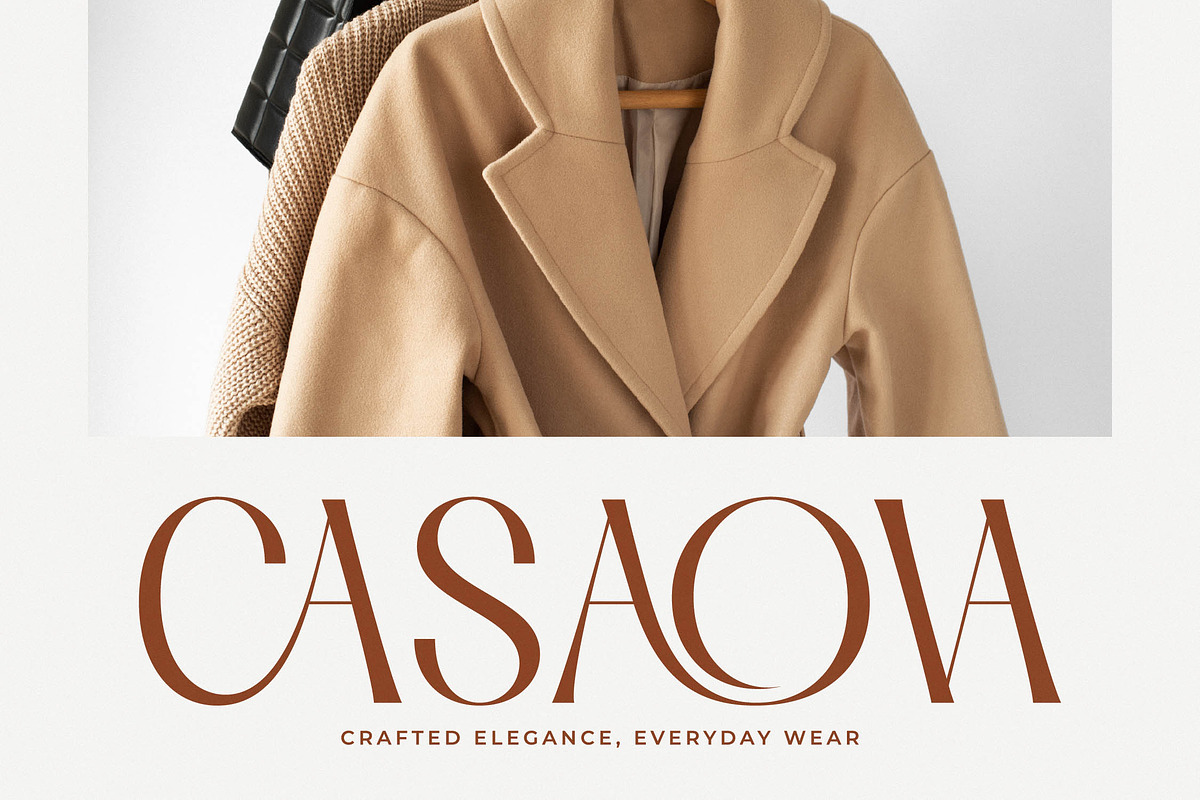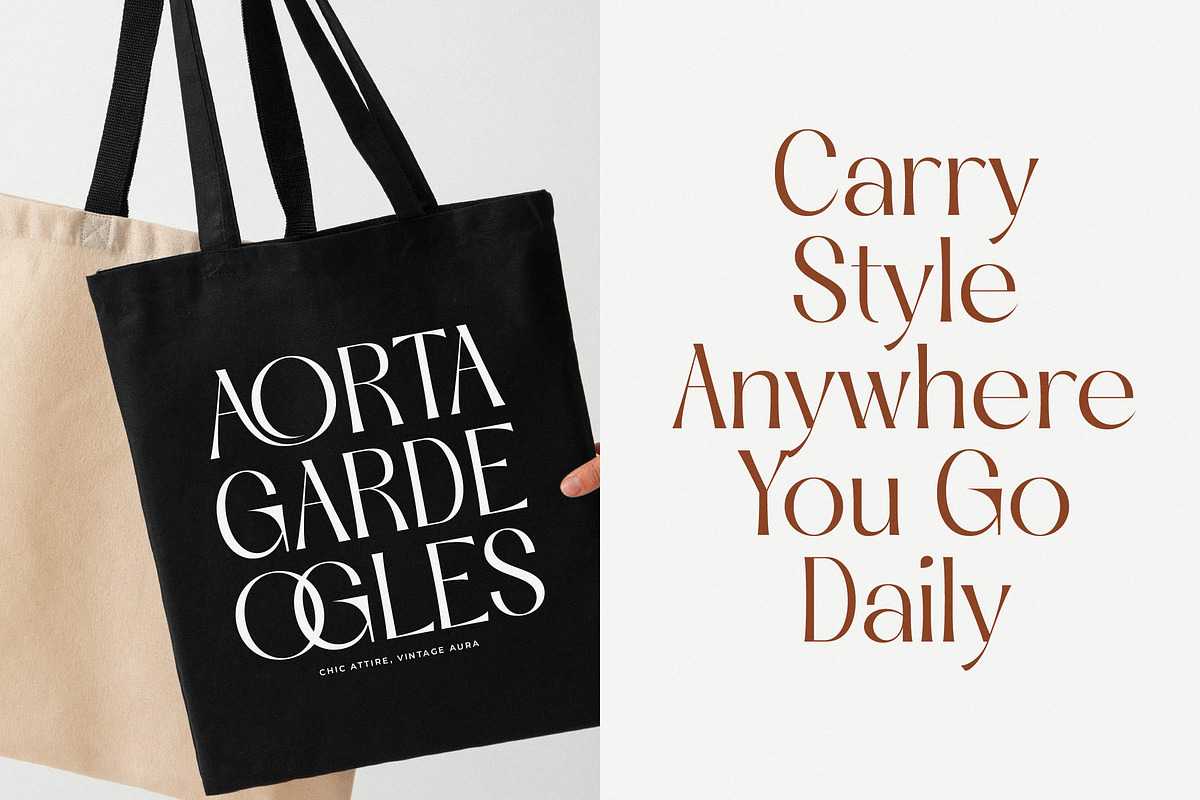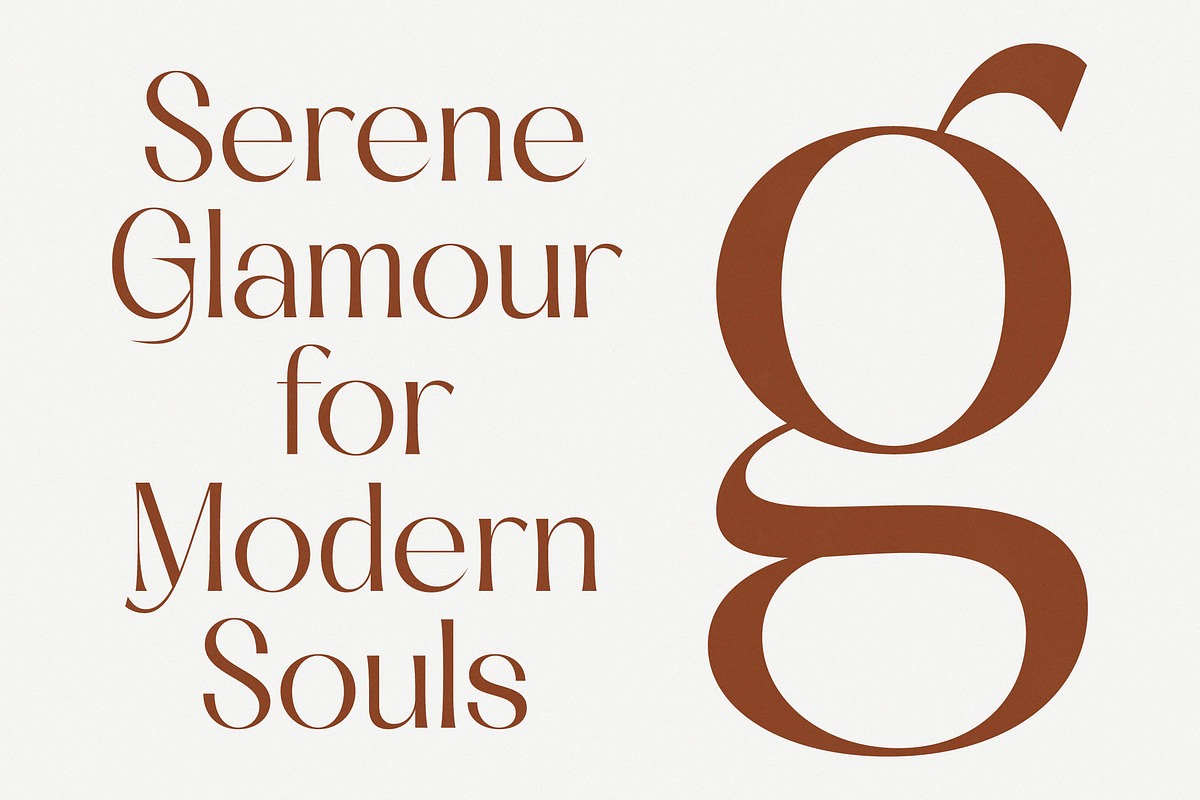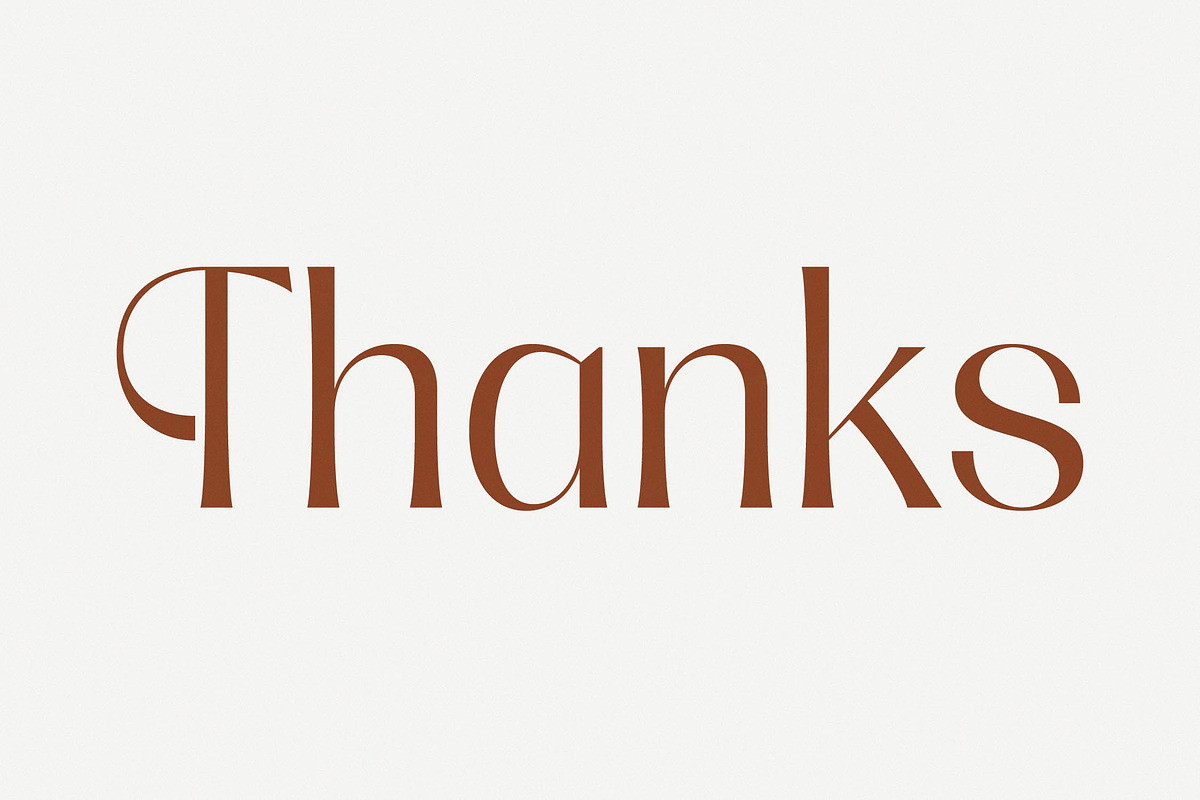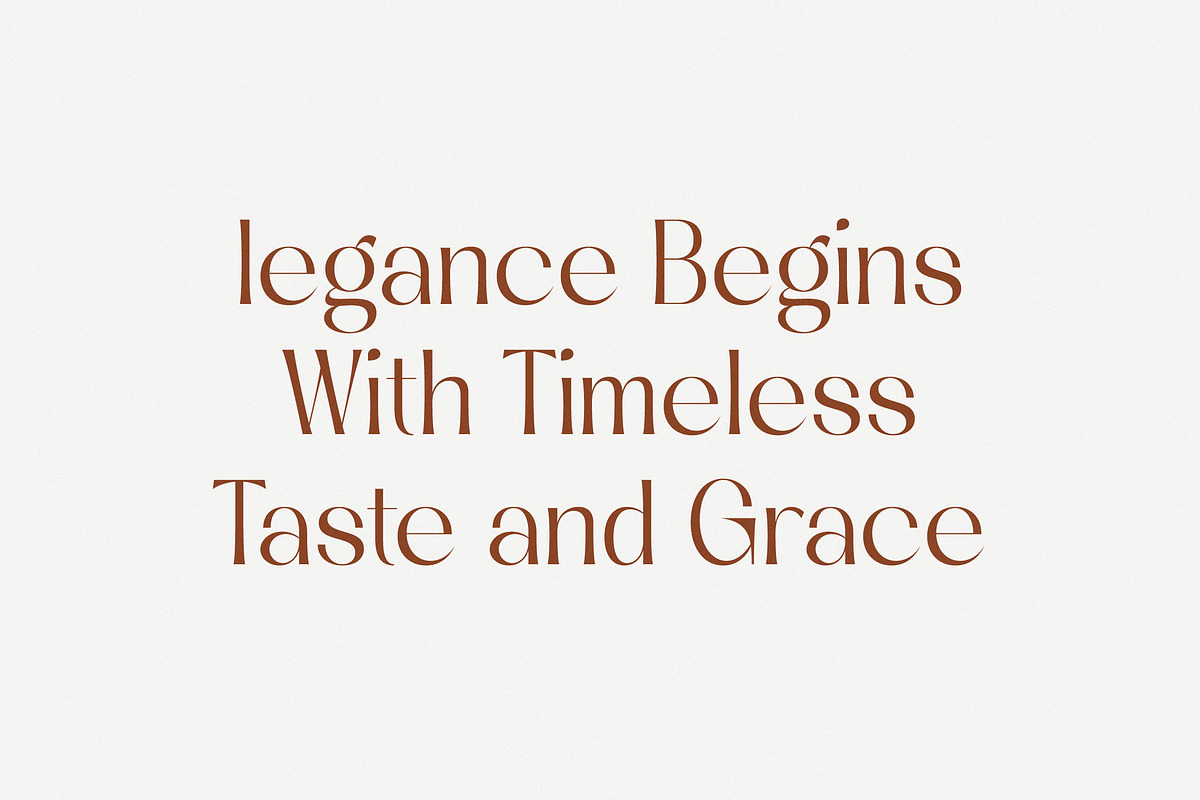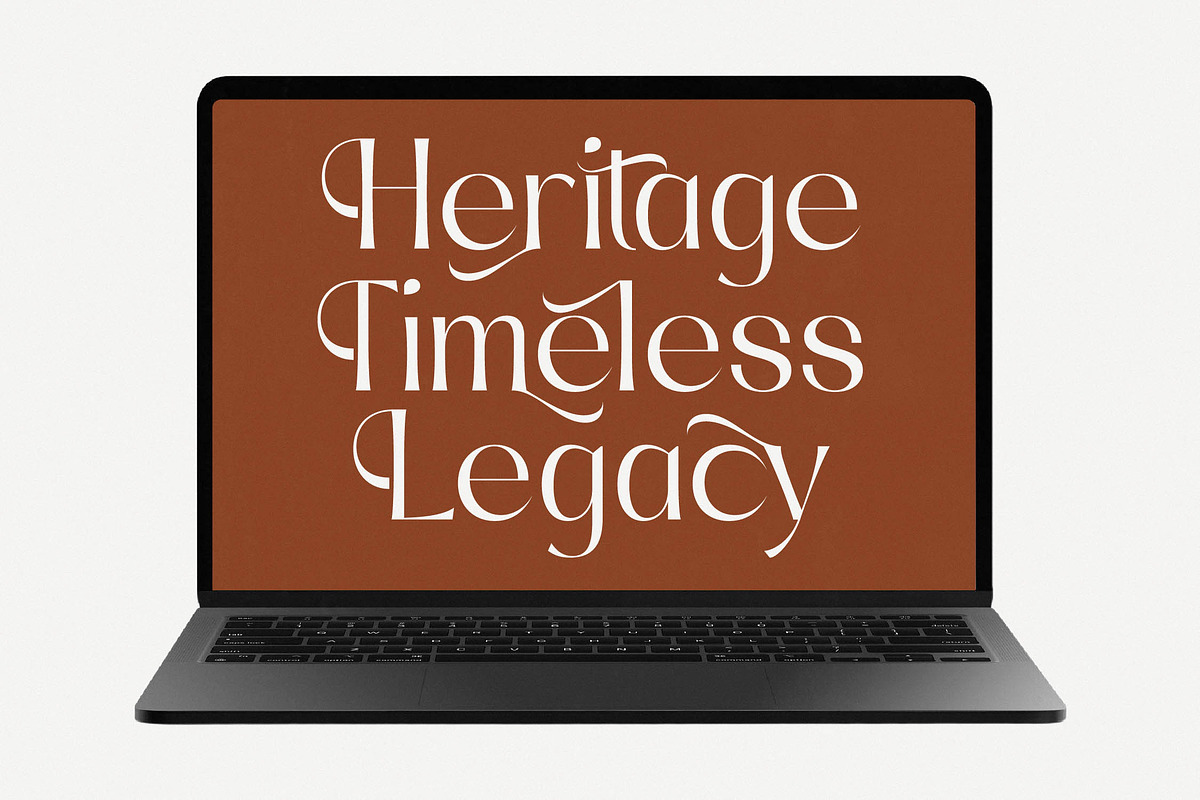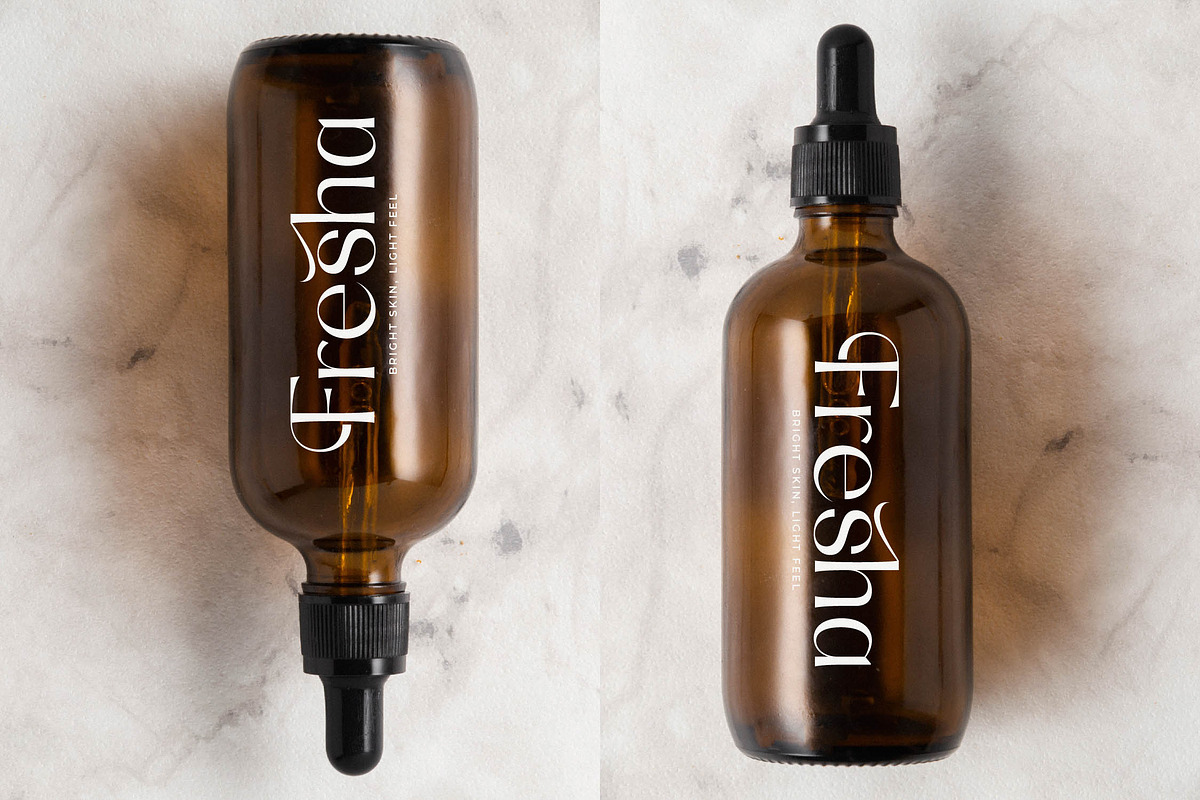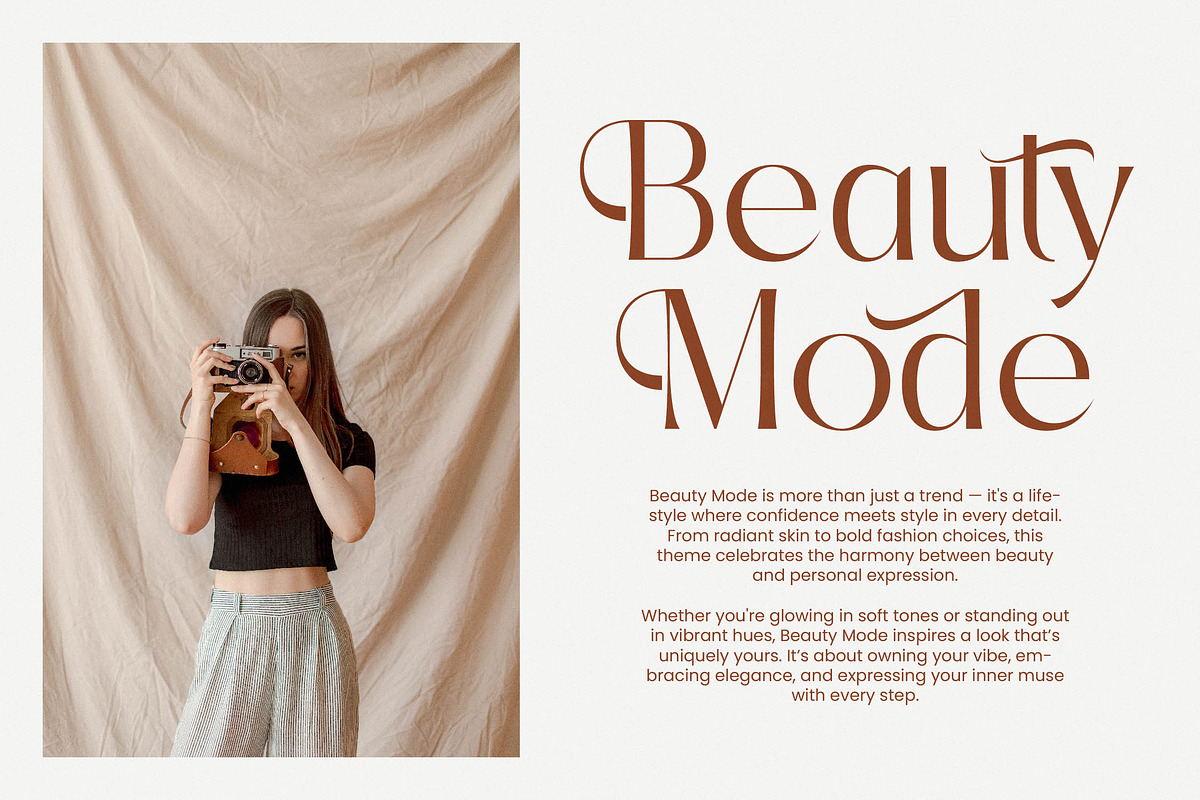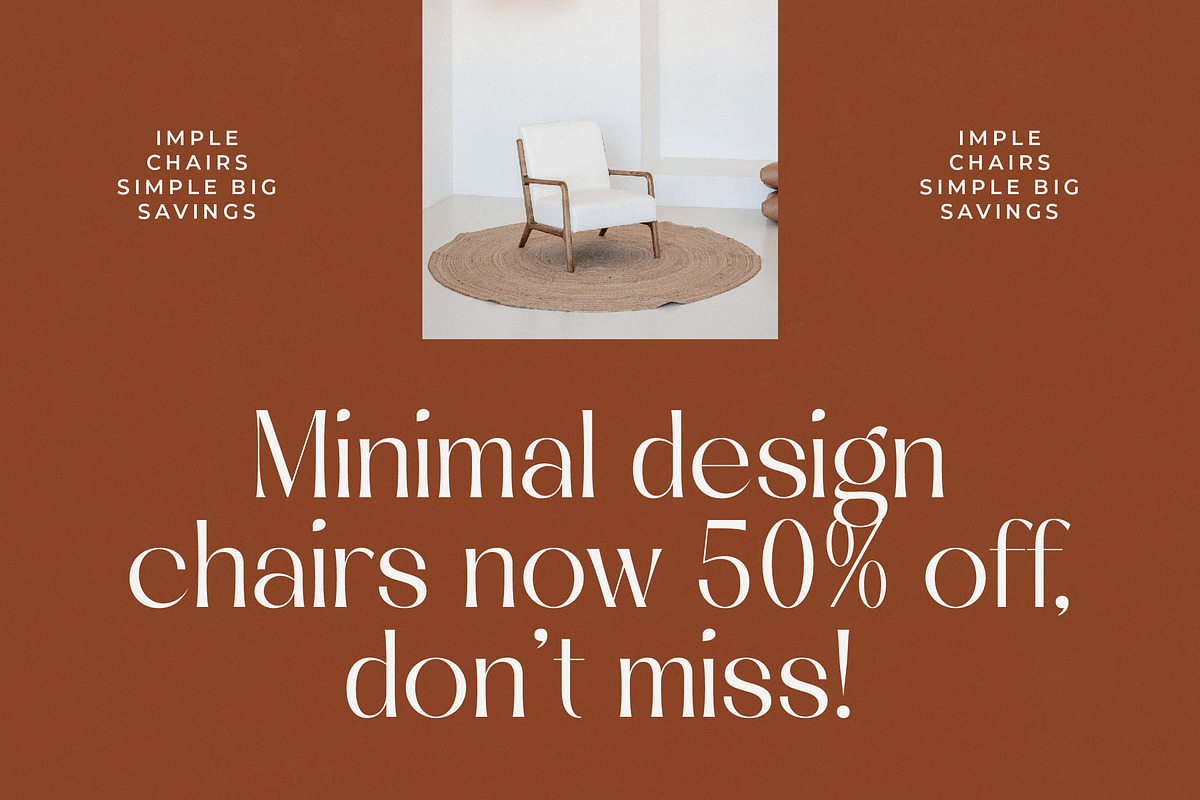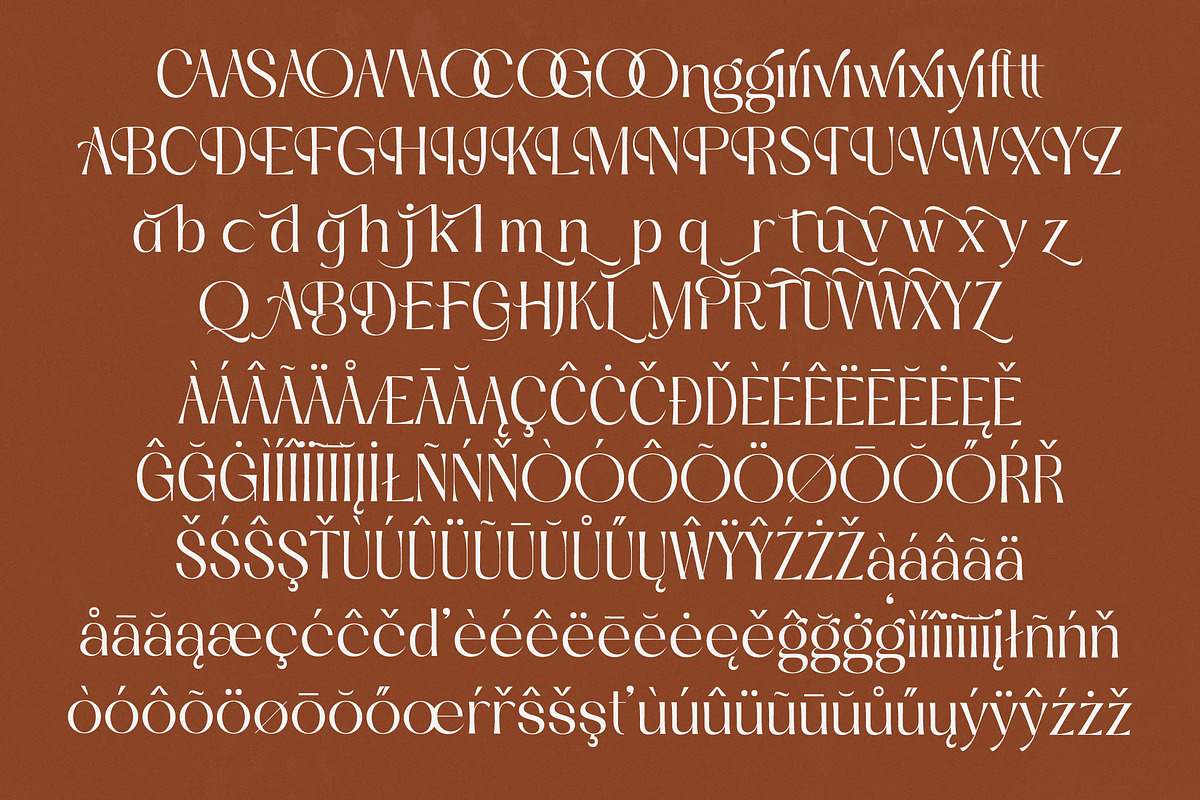
Qasntel Elegant Serif Display
Qasntel is the epitome of refined grace, a typeface designed to command attention while whispering stories of timeless elegance and poise. It serves as a visual bridge between heritage craftsmanship and the sharp, clean lines of contemporary aestheticism.
Drawing inspiration from the golden age of high-fashion journals and luxury boutique signage, this font balances architectural precision with fluid, organic curves. Its visual narrative is one of prestige and meticulous detail, designed for those who appreciate the finer nuances of letterform construction.
With its modern serif display and high-contrast serif strokes, this typeface creates an immediate branding impact that resonates with luxury markets. It is the quintessential luxury typography solution for creators seeking a polished, editorial font that bridges the gap between traditional prestige and cutting-edge minimalism.
As the modern serif trend continues to dominate global visual identities, Qasntel stands out with its character-driven typography that breaks away from the ordinary. It perfectly captures the current industry demand for editorial display fonts that offer a unique, bespoke feel while maintaining professional legibility across all mediums.
This typeface is an exceptional choice for high-end logo design and comprehensive branding projects where a sense of exclusivity is paramount. From luxury packaging and sophisticated wedding invitations to high-octane fashion layouts and editorial spreads, its versatility ensures a premium aesthetic for every application.
The package is technically robust, featuring an expansive collection of ligatures and alternates that allow for custom-tailored letter pairings and unique flourishes. With its extensive range of swashes and full multilingual support including international characters, this font is equipped for high-level global creative endeavors.
- Ligature 21 Alternate 66